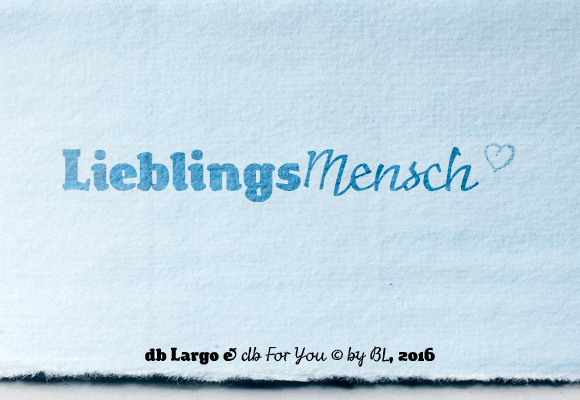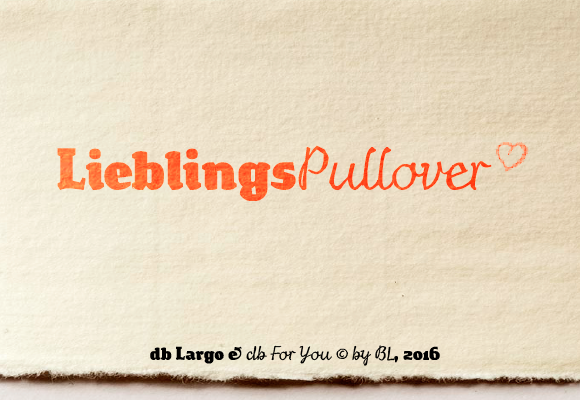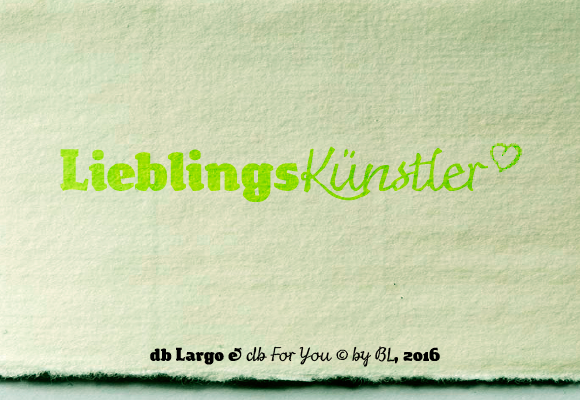
Everything about this is perfect!
Beautiful (as always) 10/10+fav
I like the mix of rounded and angular spurs/serifs.
nice and classic
love the way the g's terminal connects to the bowl
Great boldy.